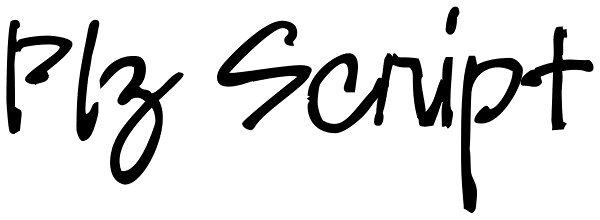
Plz Script
Plz Script is a warm and friendly script font that can be used as body copy or for headlines. Great with Architectural Lettering or Plz Print. It can also be found in the book "Indie Fonts 3, a Compendium of Digital Type from Independent Foundries".